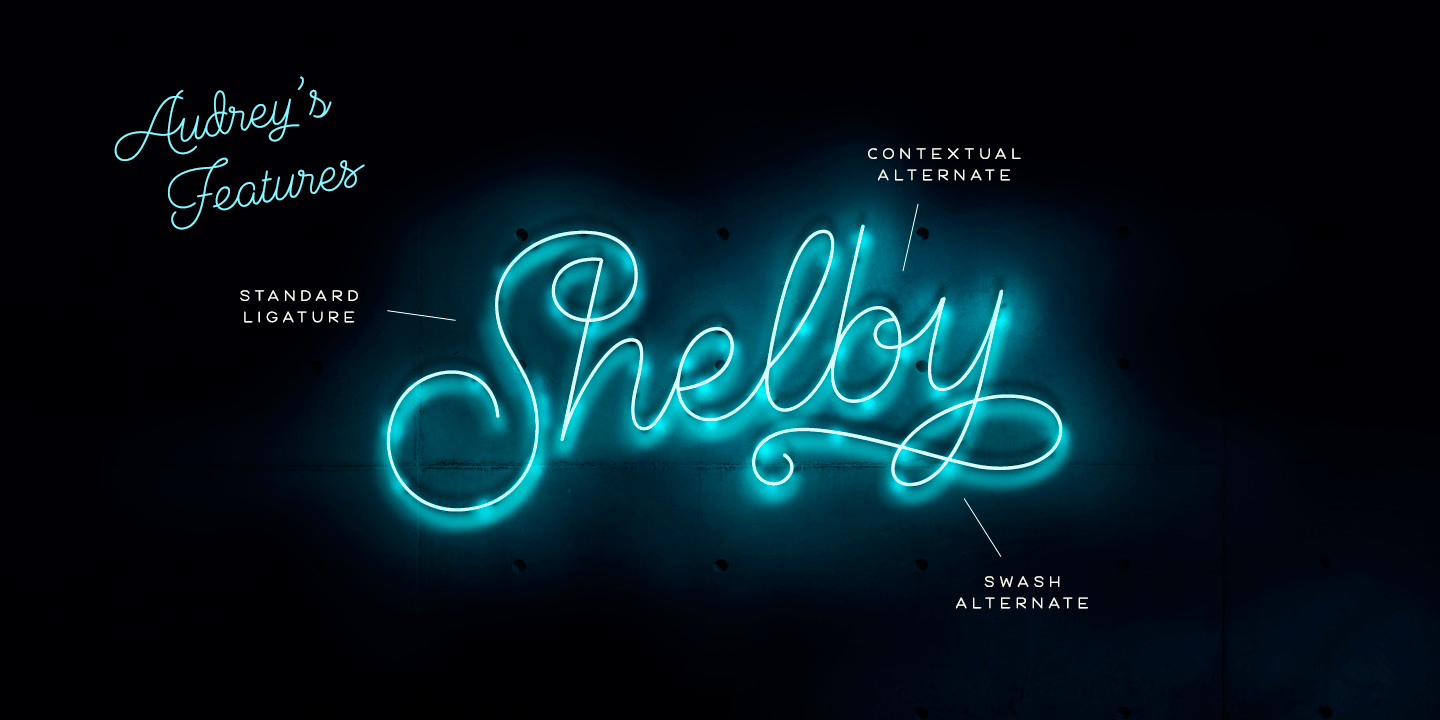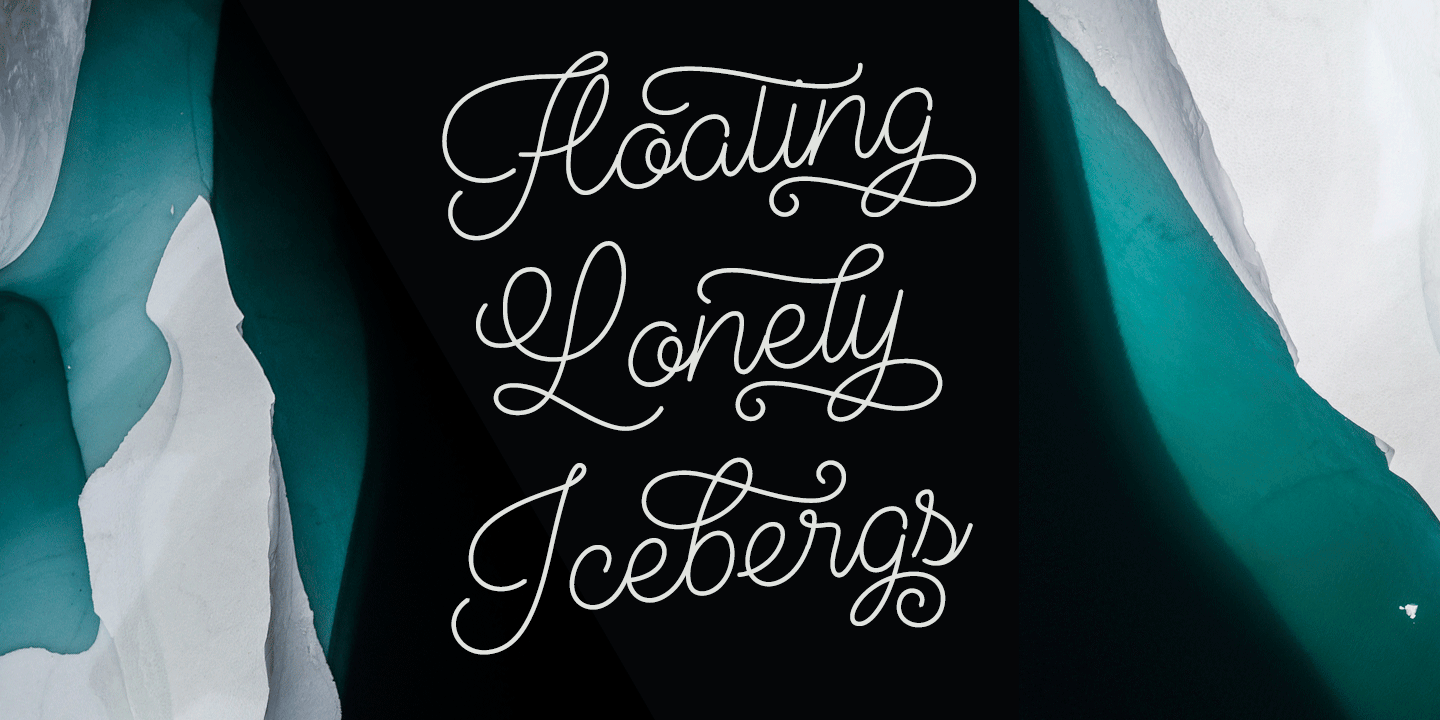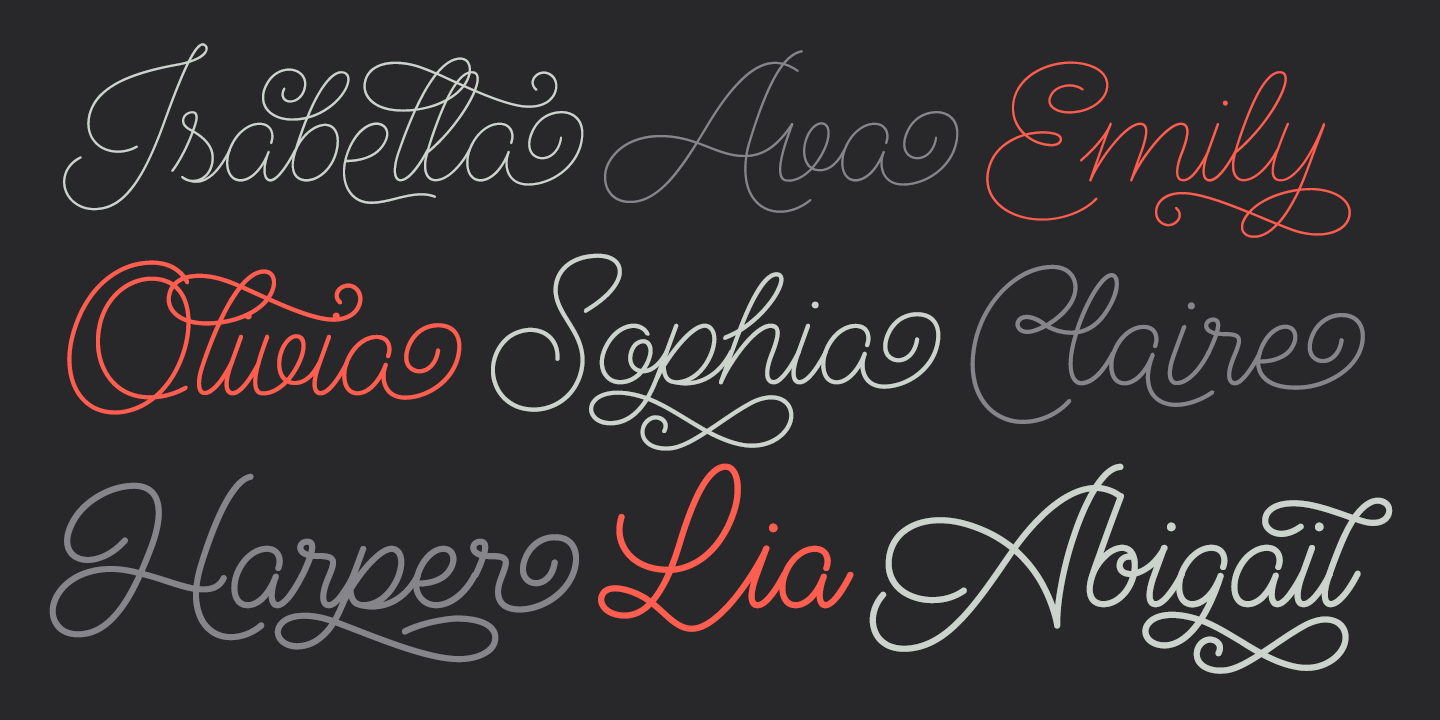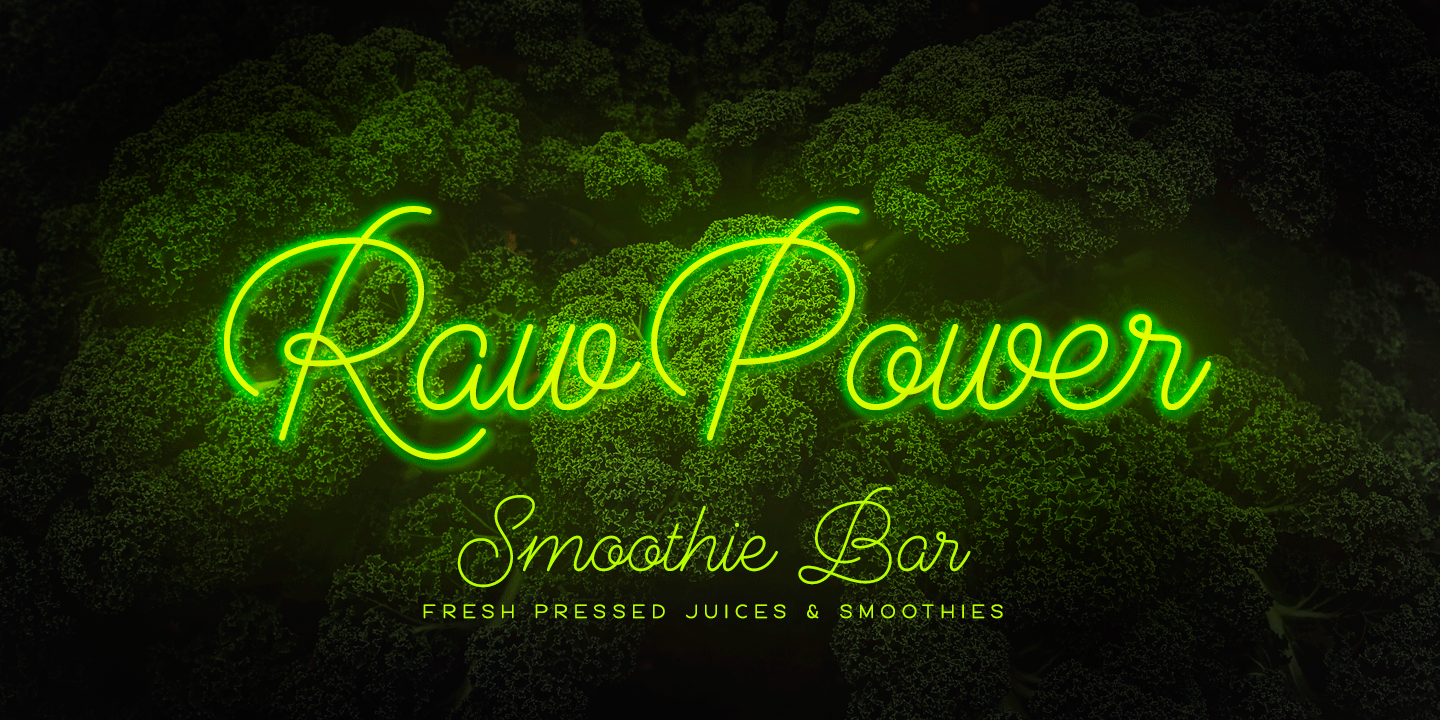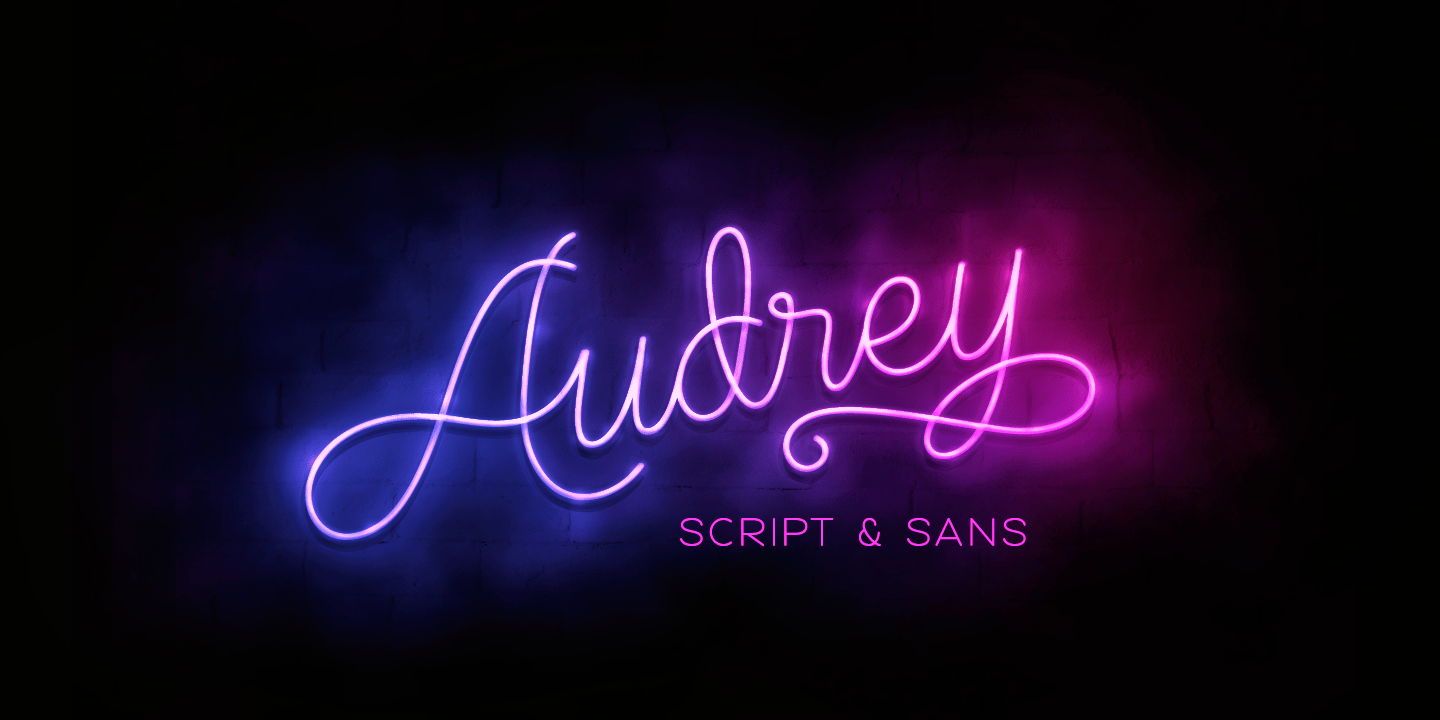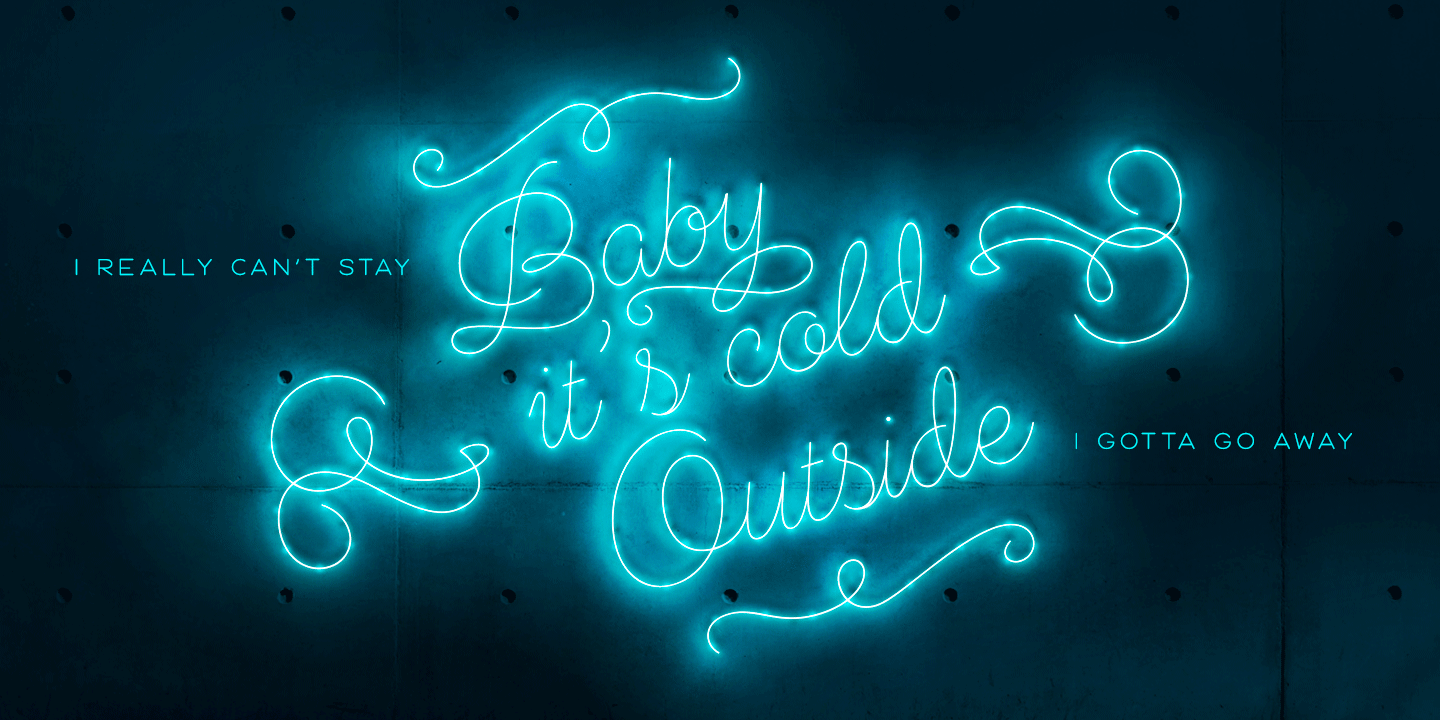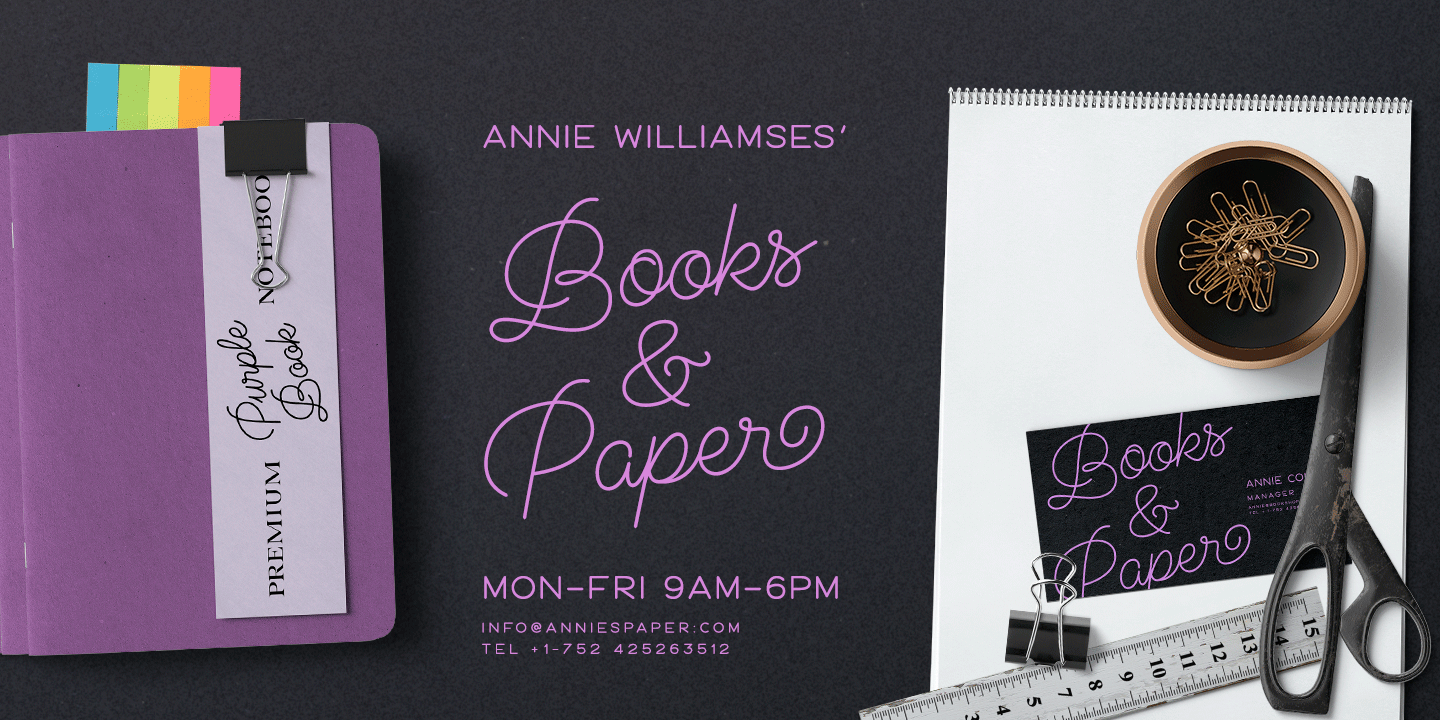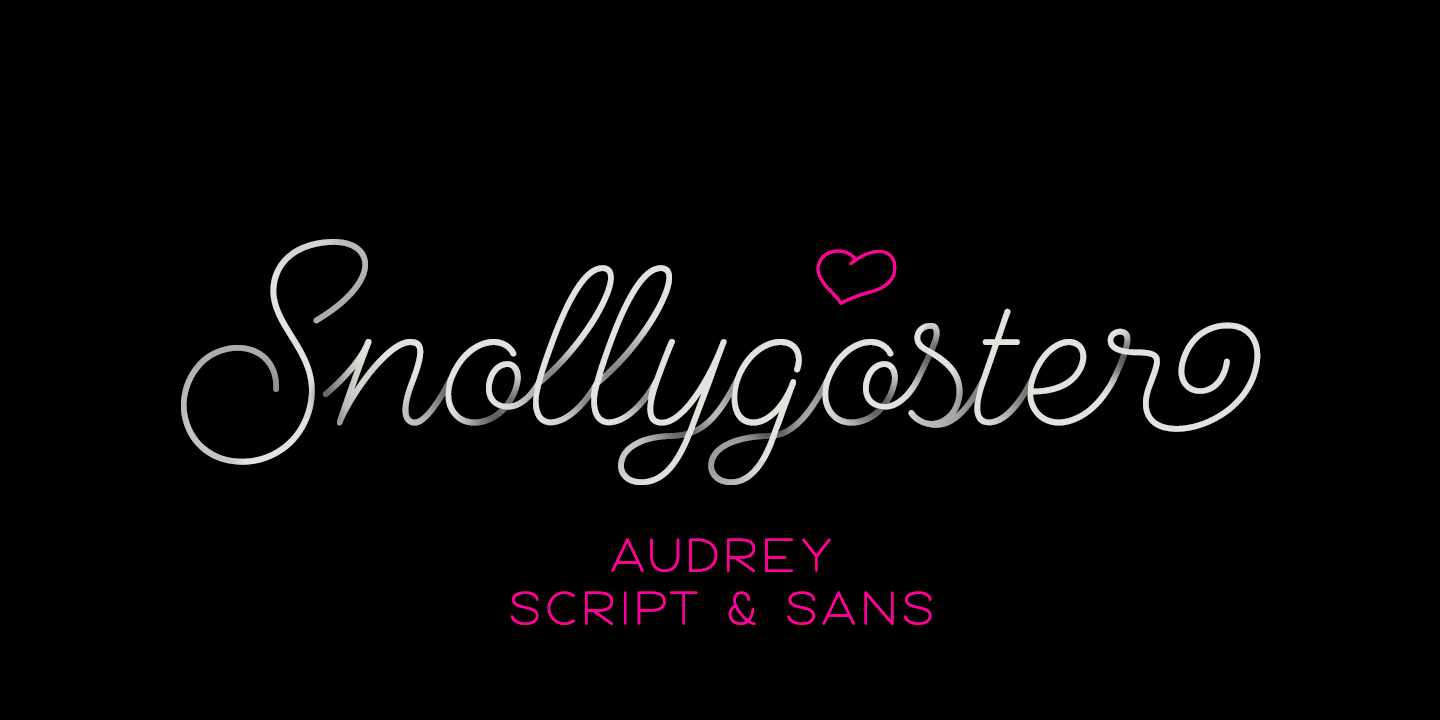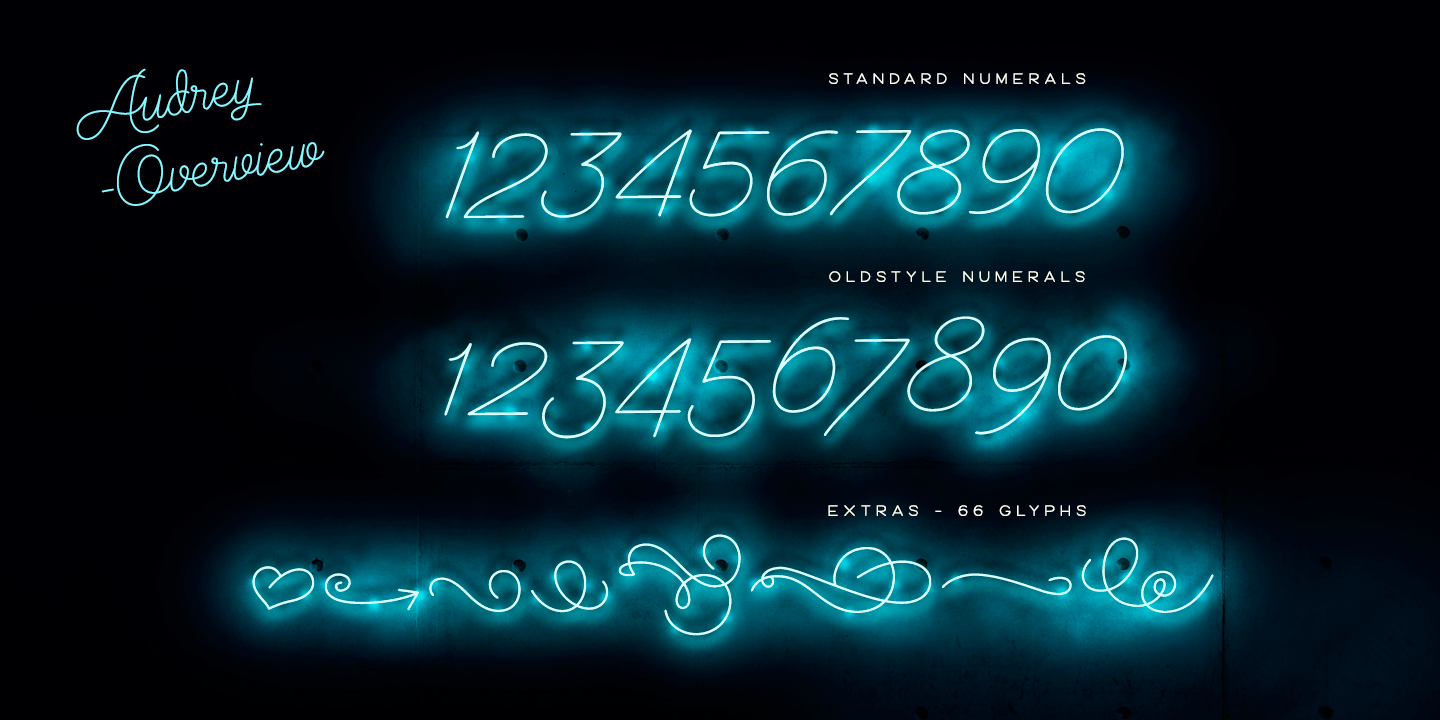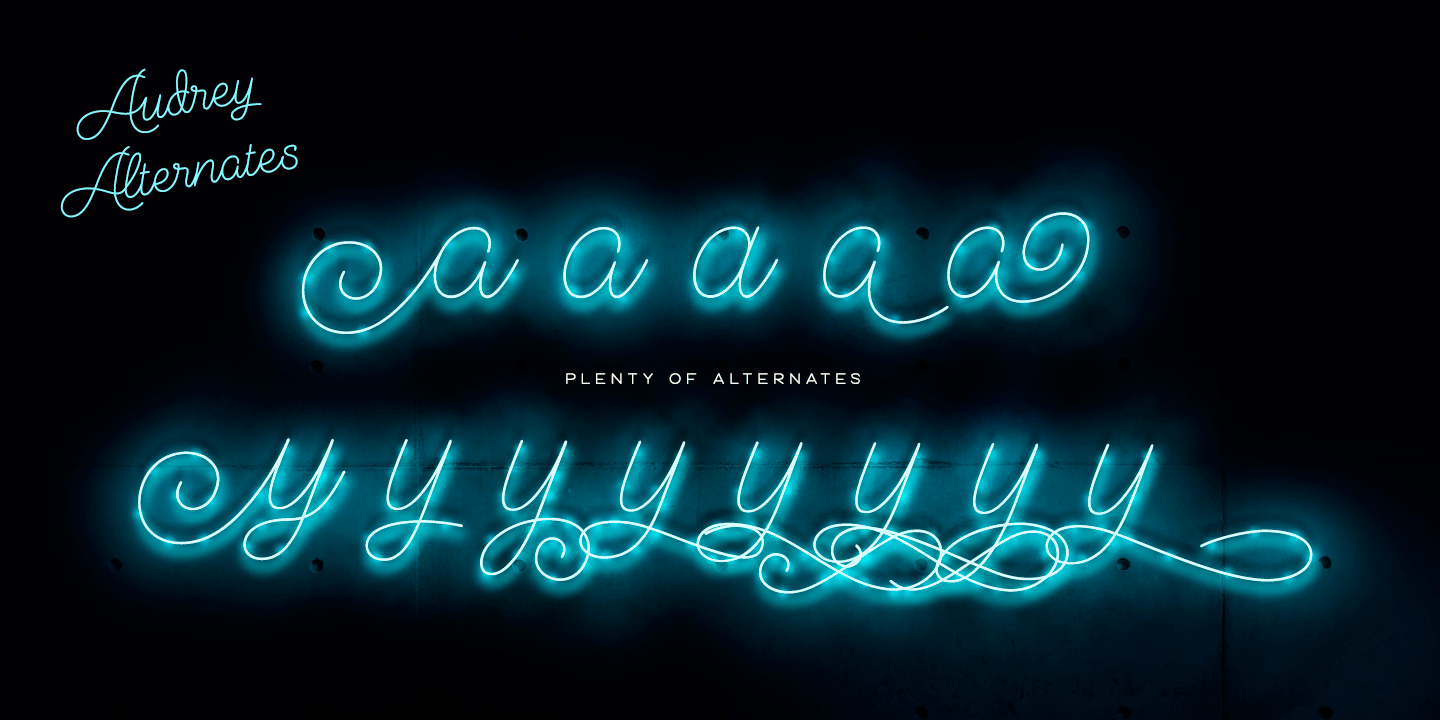
Audrey
Font Family by Fenotype
Audrey is an elegant monolinear Script and Sans font family. Audrey is great for designing headlines, packaging or as a logotype online or offline.
Audrey has three weights of Script and Sans and a set of Ornaments. The weights go following: Regular is twice and Bold is three times as wide as Thin so if you want to have an Ornament example with same stroke width as Script you can set the Script in 36pt Regular and Ornament 72pt Thin -and they'll have exactly the same width.
Audrey Script is packed with OpenTtype features: Keep Standard Ligatures on for smooth connections and try Swash, Stylistic or Titling Alternas for more showier letters or seek for even more alternates from the Glyph Palette. Script also has Lining numerals as default and Old Style numerals as an OpenType alternates.
Audrey is a close relative to widely popular Cosmopolitan released earlier by Fenotype. Compared to Cosmopolitan Audrey has more geometric forms and bigger lowercase characters with larger x-height.